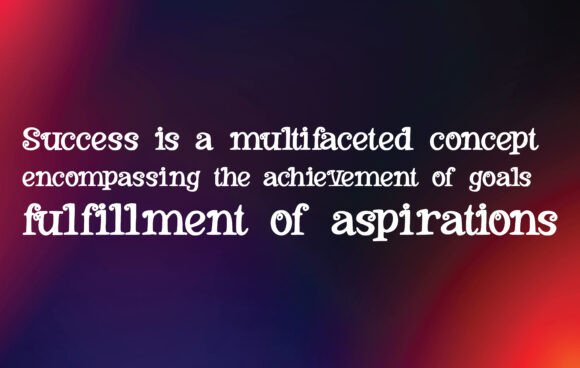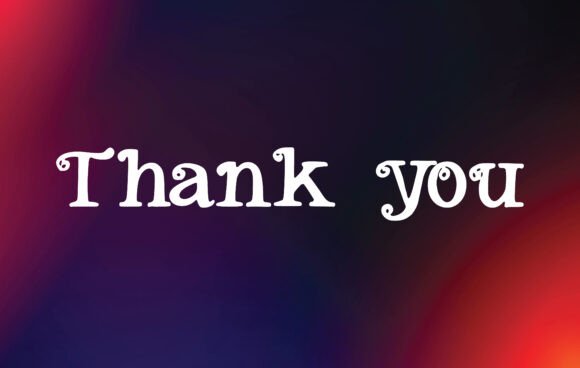
Introduction to Kalmia Font
Do you ever get that moment of pure creative bliss, where all your ideas come together in perfect harmony? For designers, this feeling is what drives us to create something truly exceptional. It’s the moment when a simple sketch transforms into a stunning visual masterpiece.
As a designer, you’re constantly on the lookout for the perfect design resource to elevate your creative project. That’s where the Kalmia Font comes in – a beautiful, handwritten font that’s sure to take your designs to the next level. With its high quality and elegant feel, Kalmia Font is the perfect choice for creating eye-catching logos, branding, and quotes that demand attention.
Key Features of Kalmia Font
- High-quality design resource ideal for creative projects, including logos, branding, and marketing materials.
- Unique characteristics, such as its elegant and sophisticated design, make it a standout choice for creative projects requiring a touch of sophistication.
Honest Review: Kalmia Font
I recently came across the Kalmia Font and was excited to try it out for my next creative project. As a designer, I’m always on the lookout for high-quality design resources that can help bring my ideas to life.
Here are some things that work well with the Kalmia Font:
- ✨ Unique and elegant design aesthetic that adds a touch of sophistication to any project
- ✨ High-quality font files that are perfect for use in print and digital designs
- ⚠️ Limited character set, which may not be suitable for complex or lengthy text-based projects
- ⚠️ May not be suitable for use in very small font sizes due to its elegant but delicate design
Overall, I was impressed with the Kalmia Font and would definitely consider using it for future projects. Its high-quality design and transparent background option make it a valuable addition to any design resource library.
How to Use Kalmia Font
Tips for Getting the Most Out of Kalmia Font
To get the most out of the Kalmia Font, experiment with different font sizes, colors, and styles. Use the font’s transparent background to create stunning visual effects, such as text overlays and background elements. You can also use the font in combination with other design elements, such as images and shapes, to create a unique and creative design.
Common Use Cases for Kalmia Font
The Kalmia Font is a versatile design resource that can be used in a variety of creative projects, including business cards, brochures, and presentations. Its high quality and transparent background make it perfect for creating visually appealing designs that stand out from the crowd. You can also use the font for personal projects, such as wedding invitations and social media graphics.